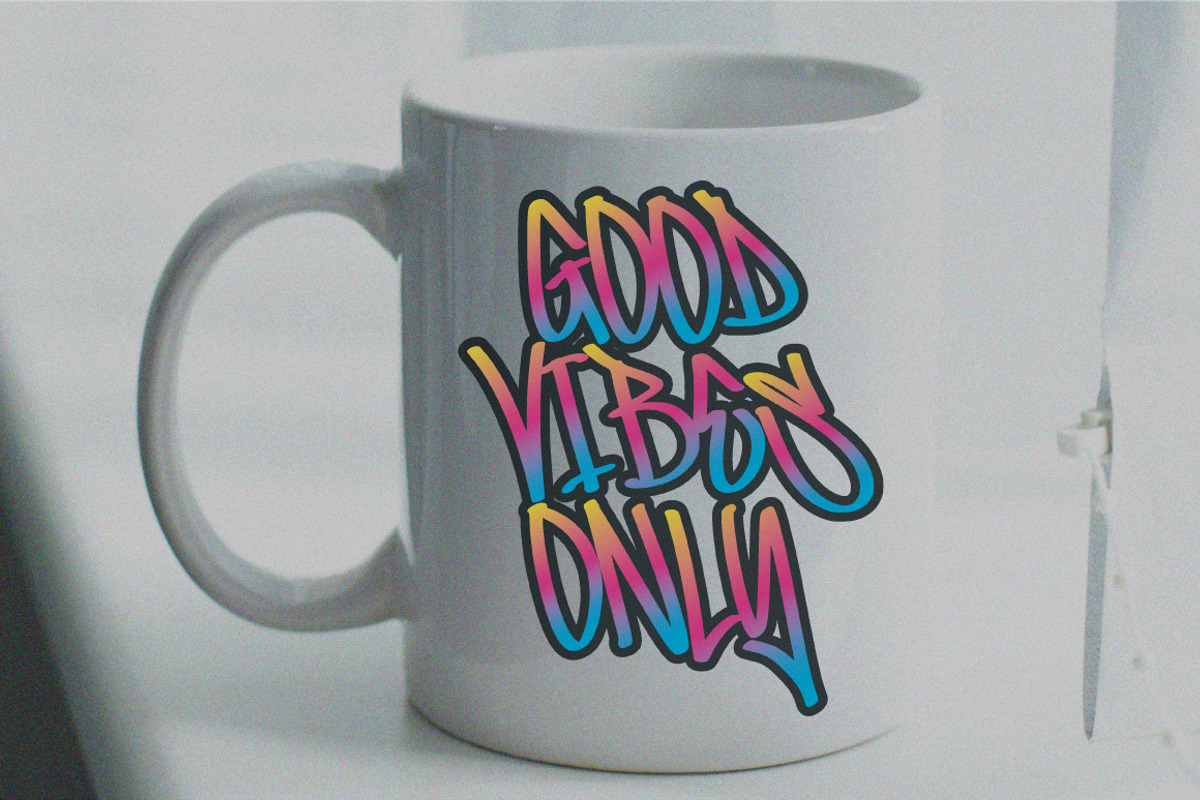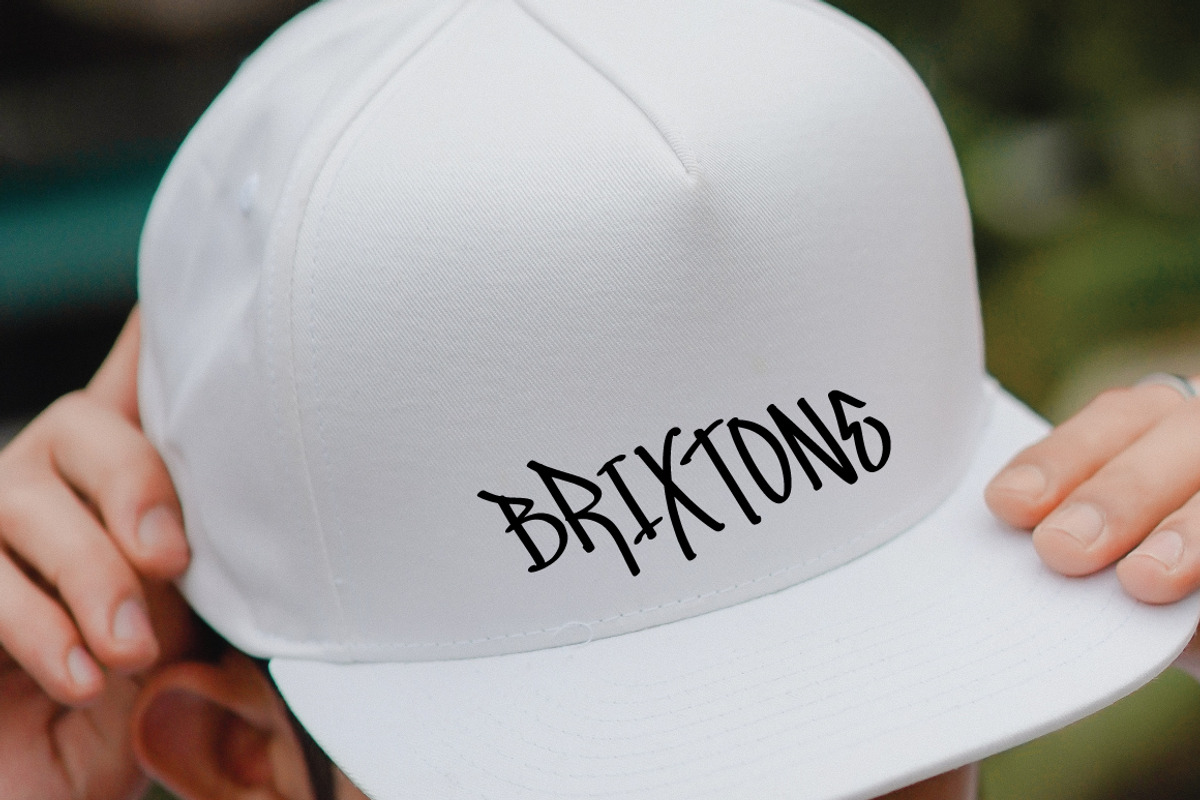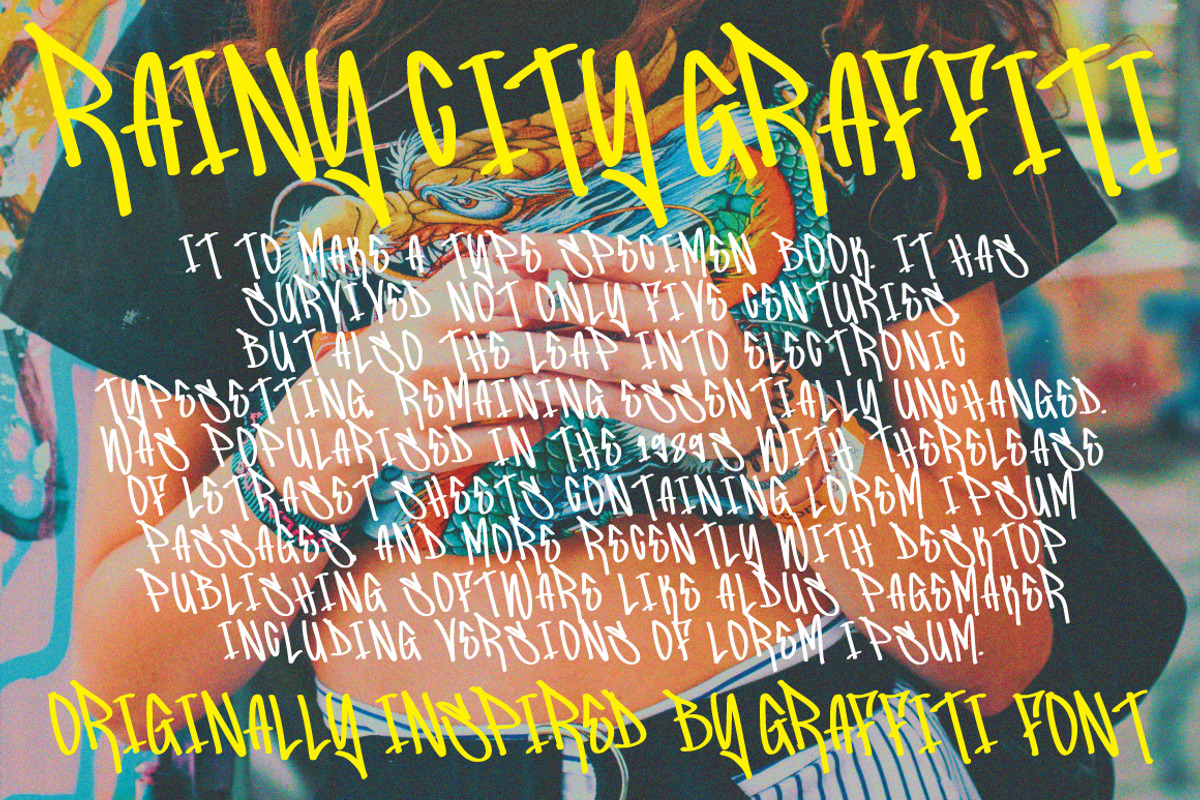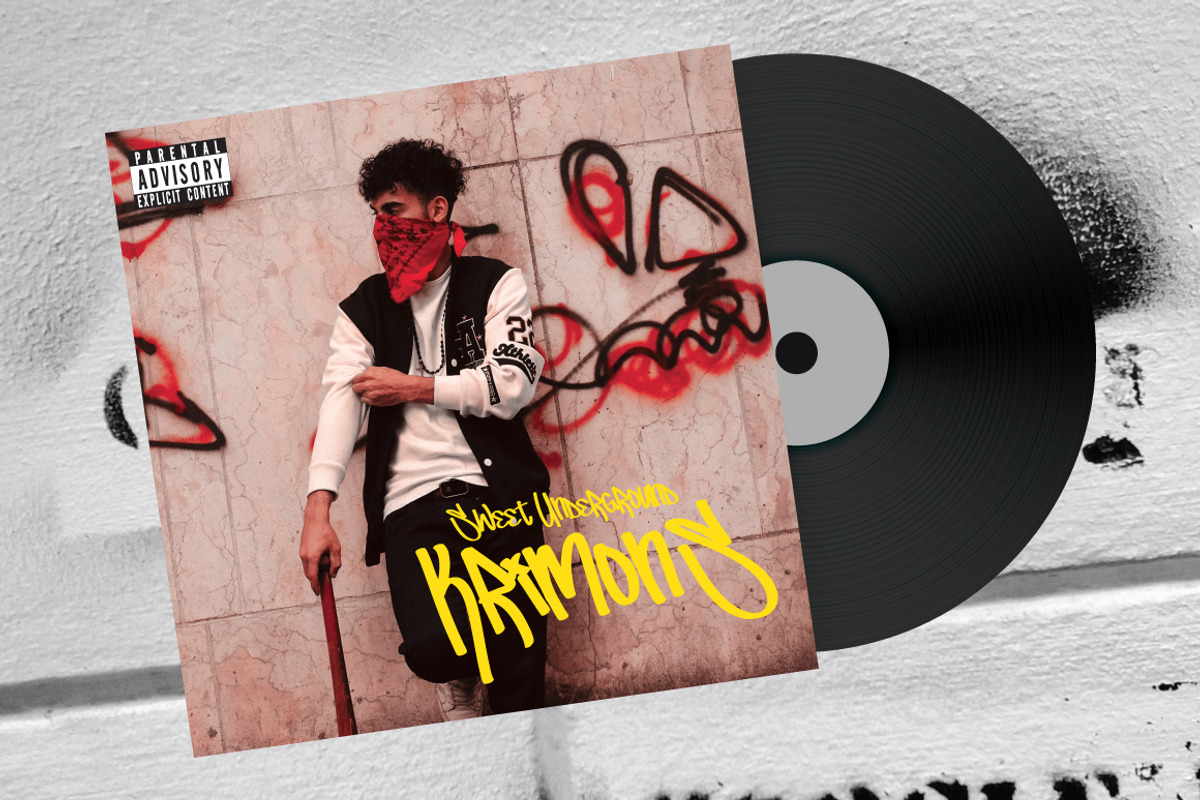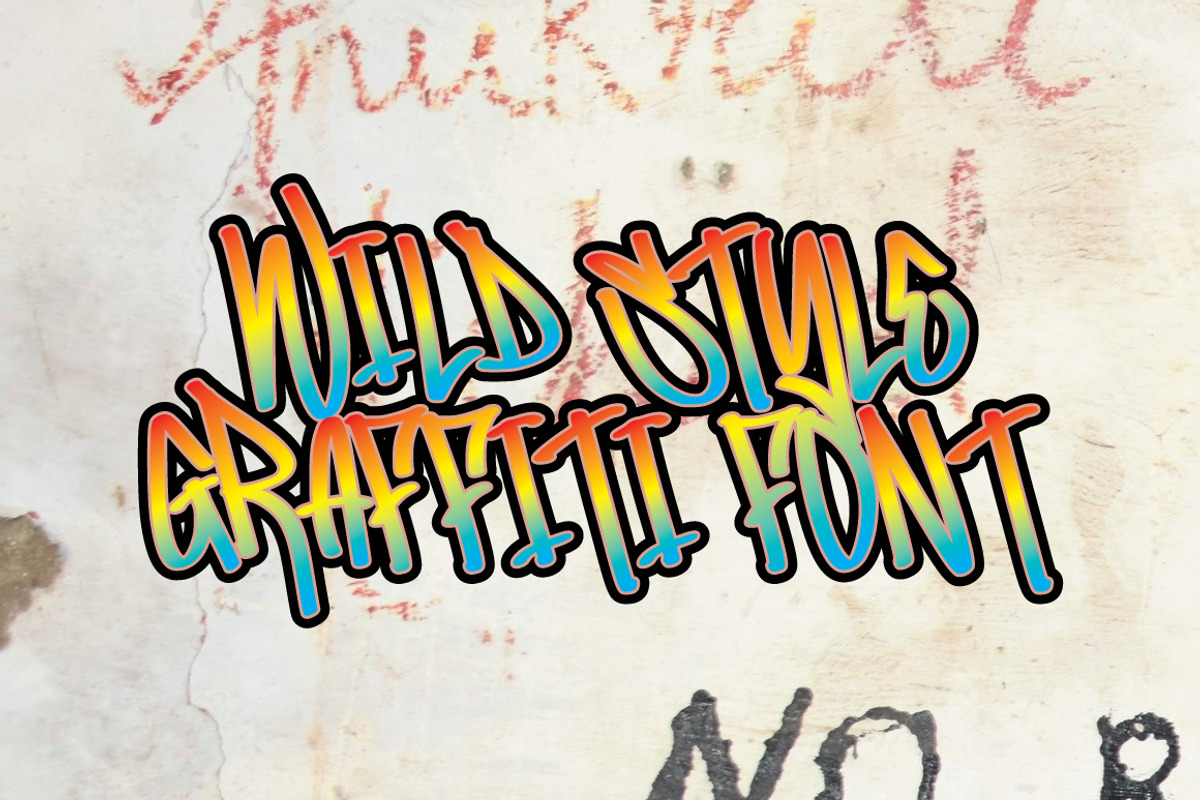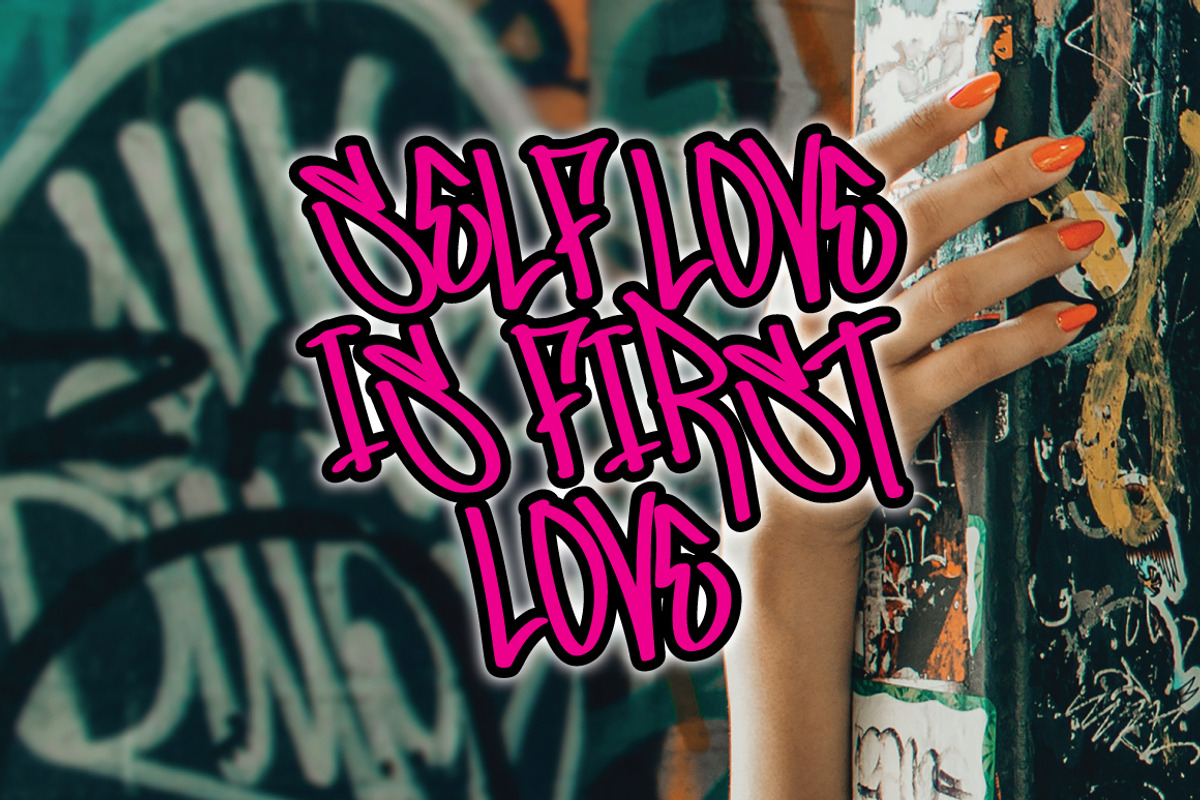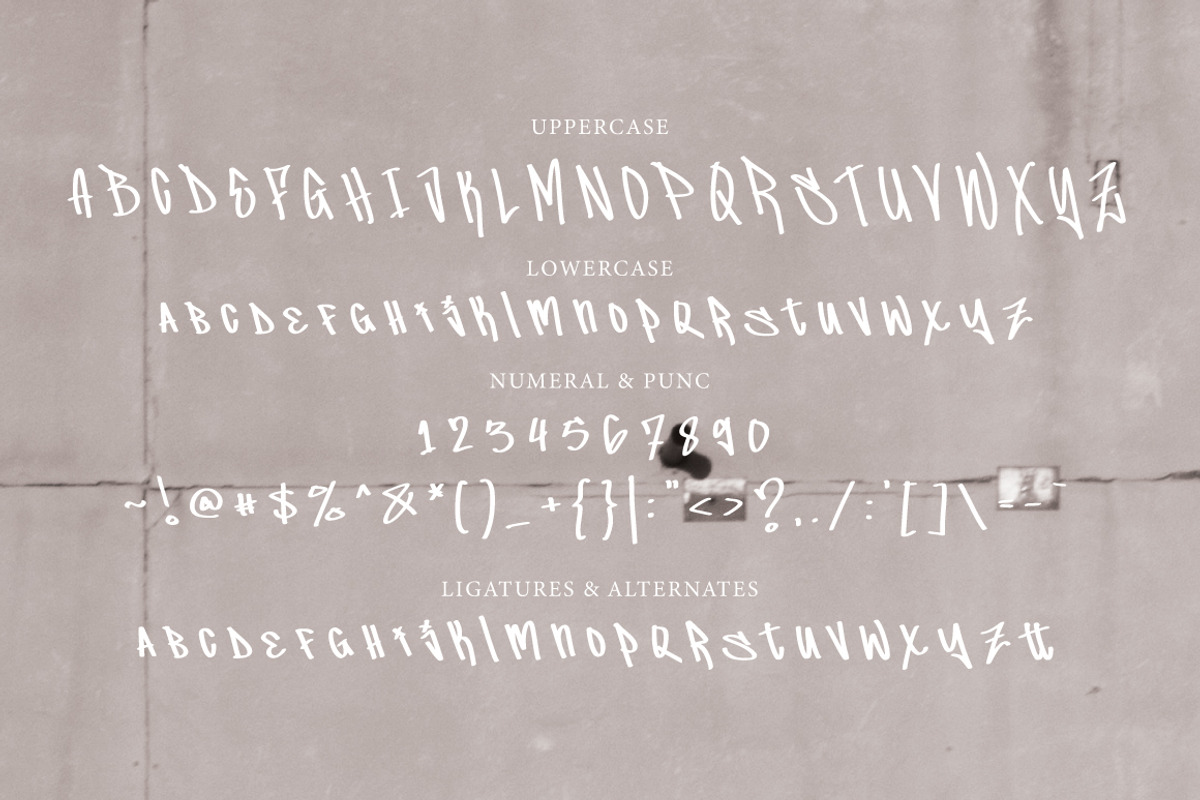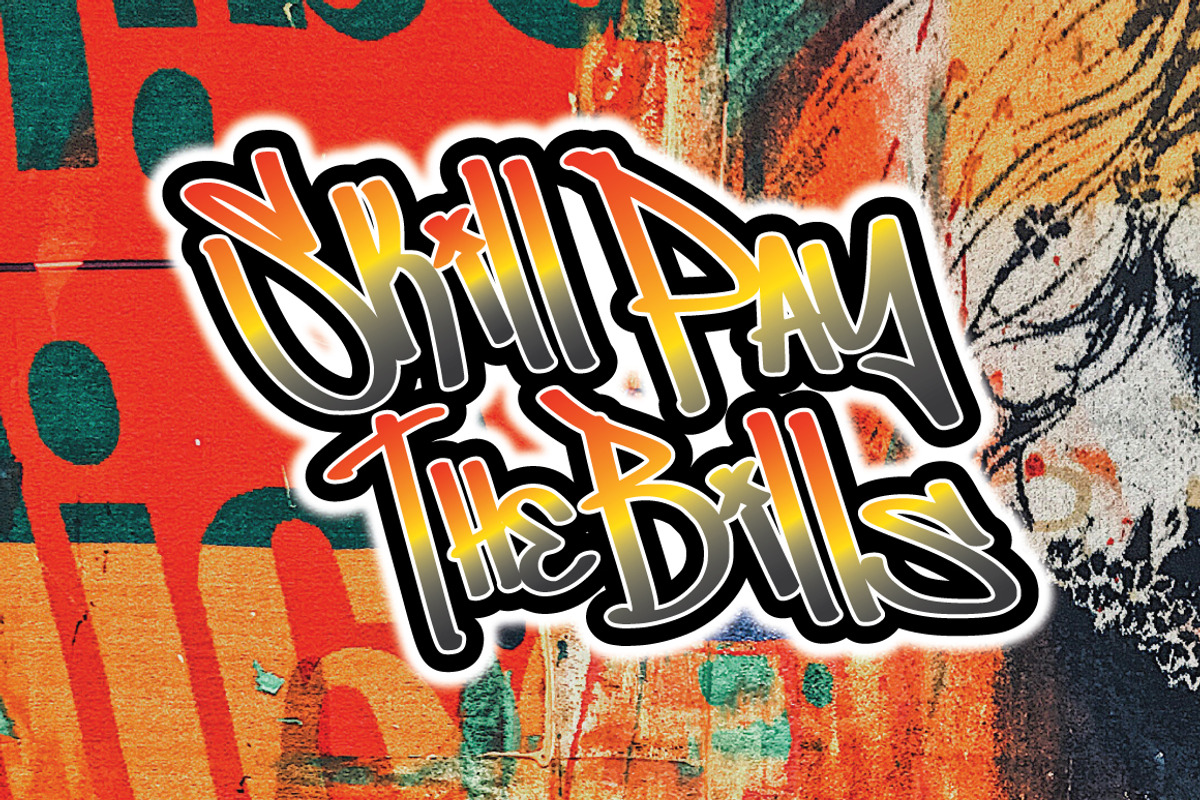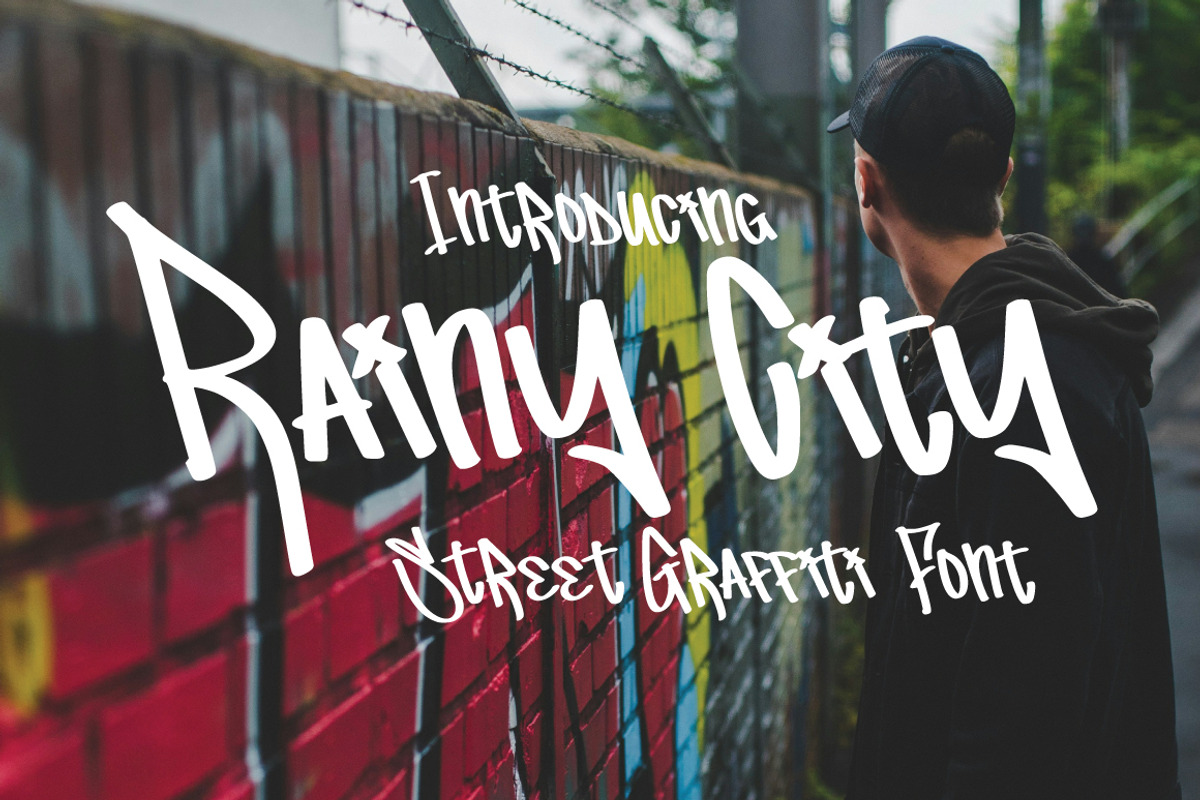
Rainy City - Graffiti Font
Rainy City Graffiti Font
Dive into the world of contemporary design with Rainy City Graffiti Font, a stylish Graffiti font that exudes a sleek and sophisticated vibe. With its seamless strokes and modern aesthetics, Rainy City Graffiti Font is the perfect choice for design projects that require a touch of minimalism and elegance.